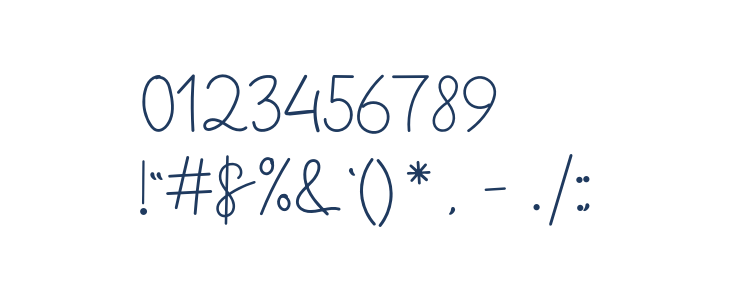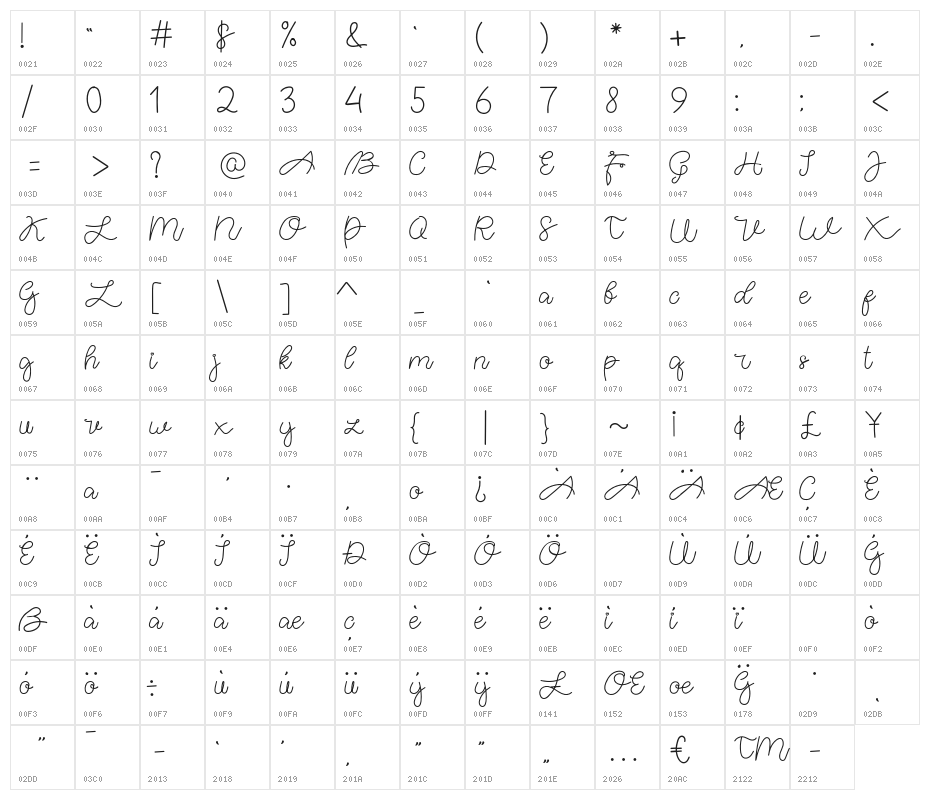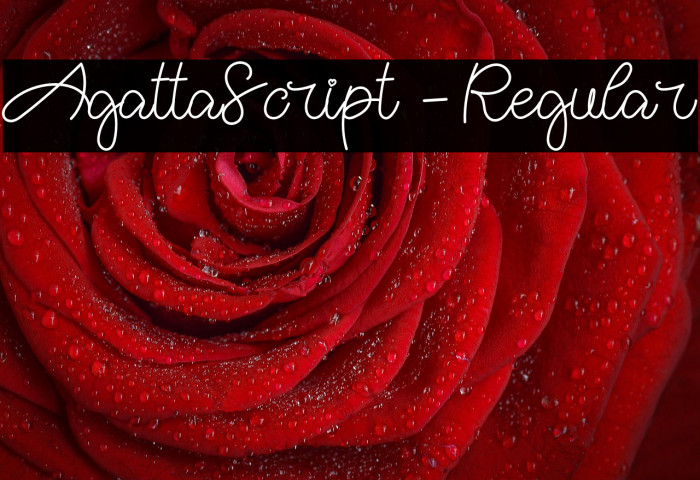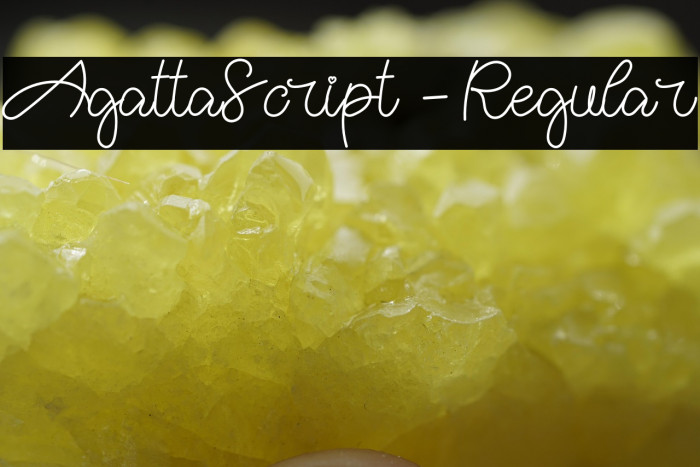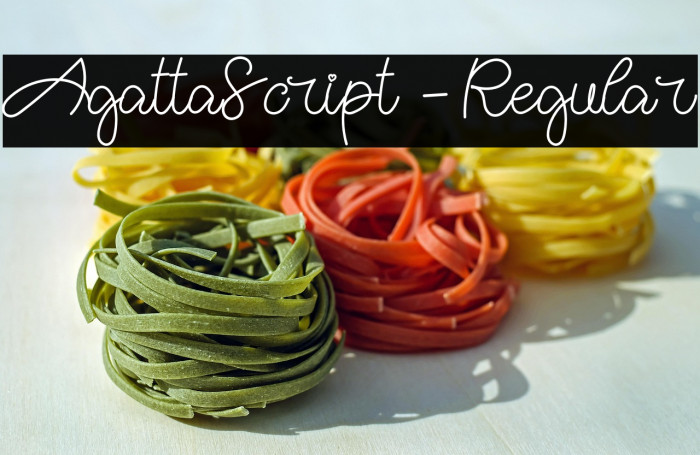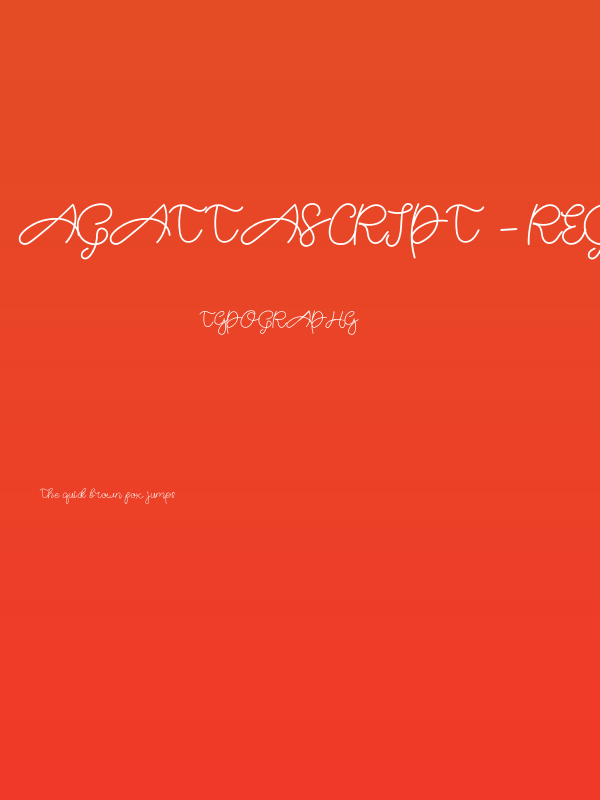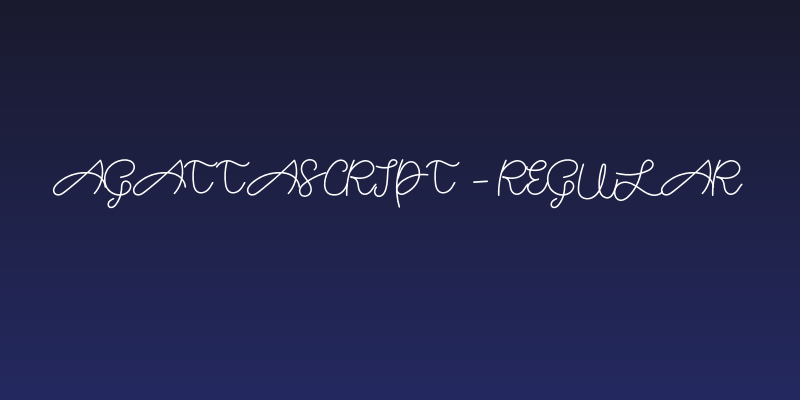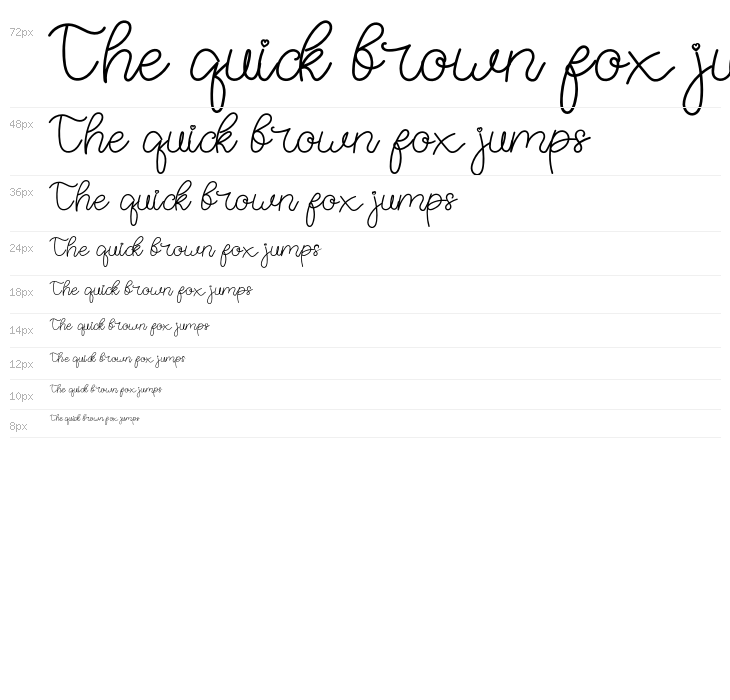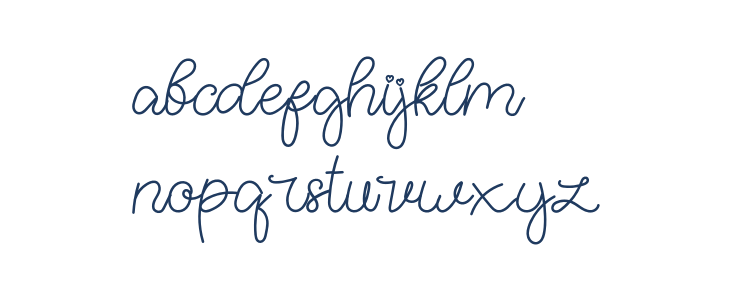
AgattaScript-Regular Font
AgattaScript-Regular Description
This font features a flowing, cursive style with elegant loops and swirls, reminiscent of handwritten script. The characters are connected, creating a seamless and fluid appearance. The uppercase letters are slightly more elaborate with decorative flourishes, while the lowercase letters maintain a consistent and smooth flow. The numerals are clear and easy to read, maintaining the script's graceful style. Special characters are thoughtfully designed to match the overall aesthetic, making this font suitable for creative and artistic projects.
| Use Case | Logos, Invitations, Decorative text |
| Proposed Projects | Ideal for wedding invitations, greeting cards, branding, and logo design. |